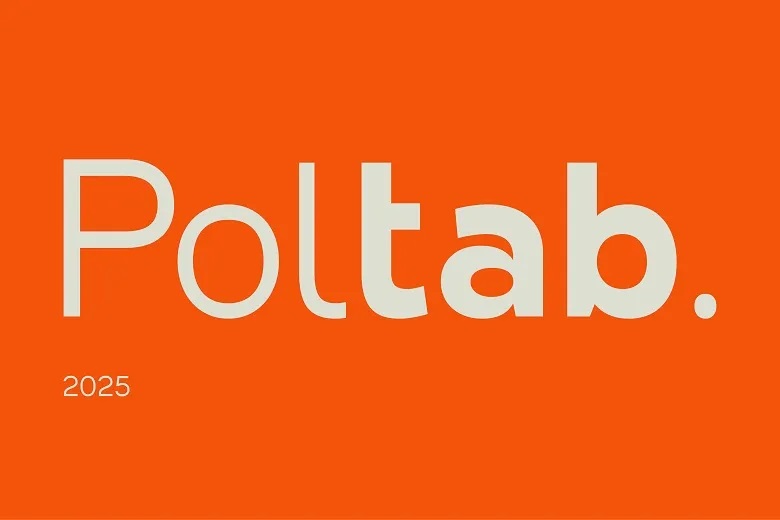
Poltab Font
Poltab is a new, completely sans serif typeface, in which geometrical accuracy is combined with a good, human feel. Poltab was developed in 2025 to be easy to understand and easy to characterize, with perfectly circular shapes, a clean single-story a, and special details that make it warm and easily approachable.
It is so versatile with its excellent readability and reductionist design. Poltab is a great fit with progressive brands, where their strengths lie in logo design and web headlines as much as they are in the UI/UX interface and social media posts. Take your projects to a new level by using a font that is both classic clean and unique modern.
Poltab Sans Serif Font